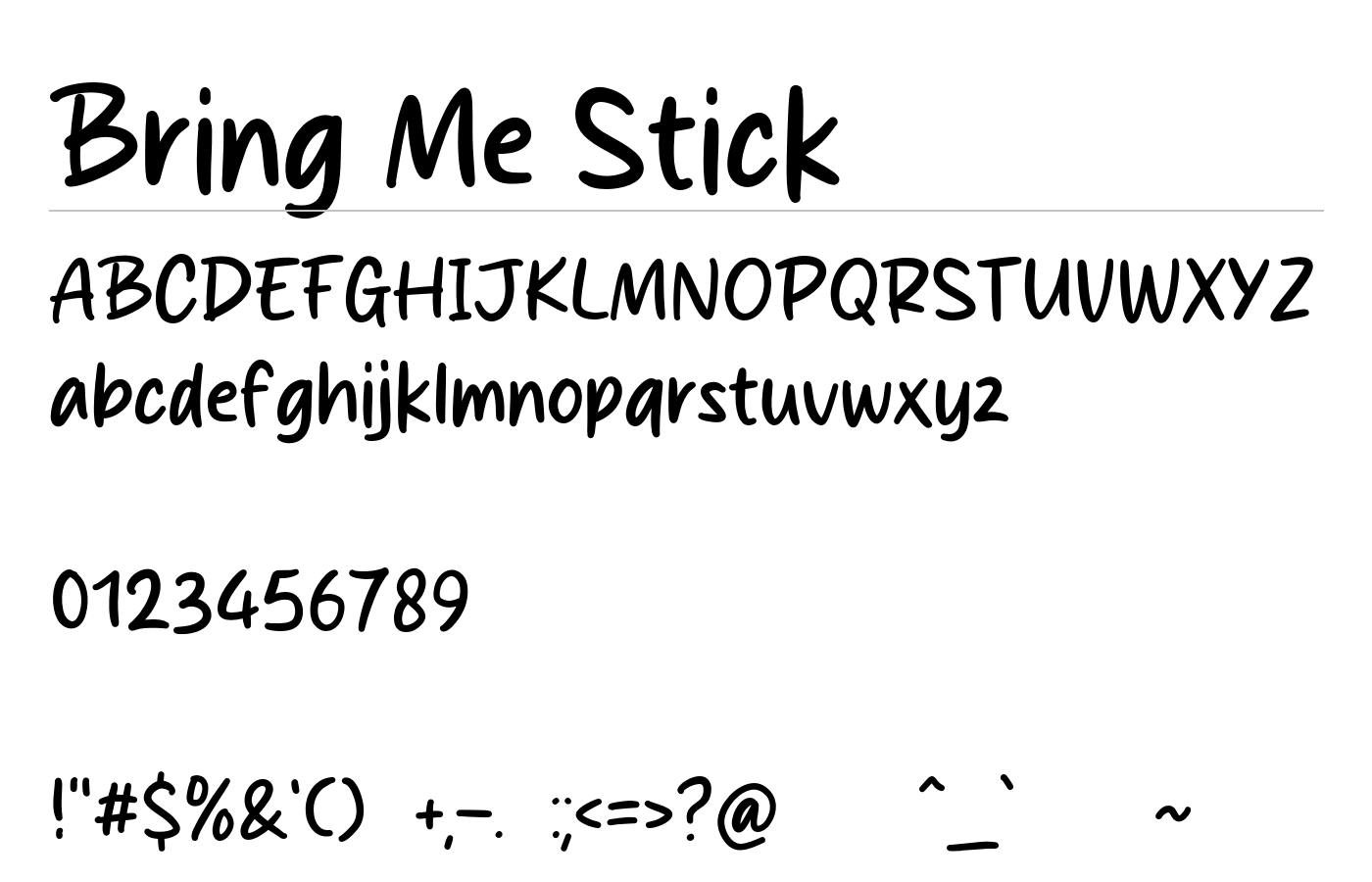
Bring Me Stick is a casual, handwritten sans serif font featuring a friendly and approachable style. Its smooth, rounded strokes and moderate contrast give it an informal, playful feel, making it perfect for personal branding, children’s materials, and creative projects that want a warm and inviting touch. This font works especially well in headlines, logos, and packaging where a natural, humanistic vibe is desired.
Bring Me Stick Font
About Bring Me Stick Font